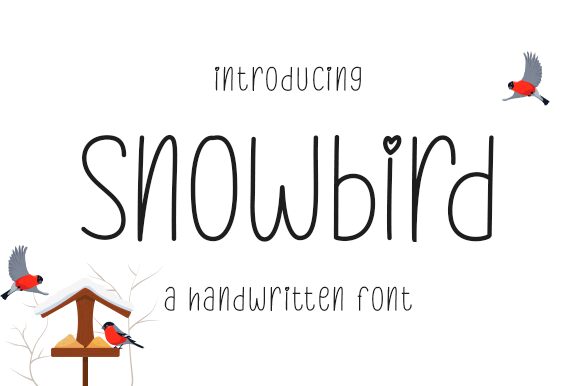
Snowbird
The lovely handwritten font Snowbird, designed by Aldi Raya Pradipta, is a light and narrow font perfect for creative projects. Use it to make your invitations, greeting cards, or even logos stand out from the crowd.